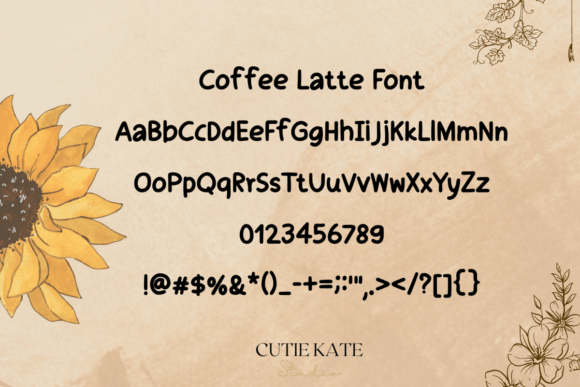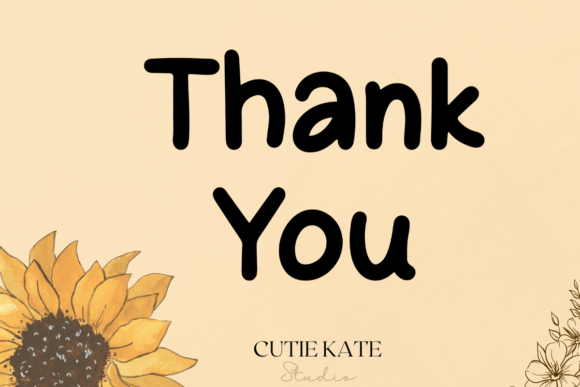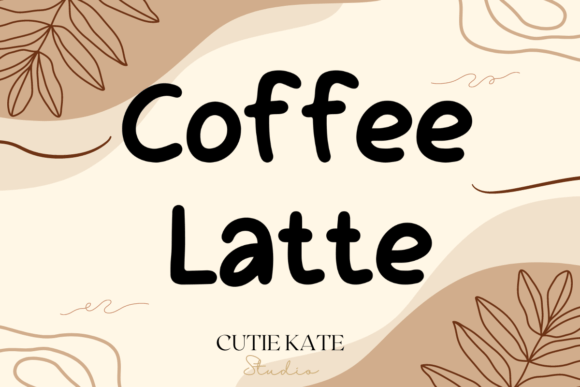
Coffee Latte Font: The Perfect Addition to Your Design Toolbox
Are you a designer, crafter, or digital artist looking for a fun and casual font to elevate your creative projects? Look no further than the Coffee Latte font! This simple yet charming font is perfect for a wide range of applications, from crafts and digital design to presentations and greeting cards. In this article, we’ll explore the features and benefits of the Coffee Latte font, and show you how to make the most of this versatile typeface.
What is Coffee Latte Font?
Coffee Latte font is a modern, sans-serif font designed to bring a touch of warmth and personality to your designs. Its clean lines, rounded edges, and friendly vibe make it an excellent choice for projects that require a casual, approachable feel. Whether you’re creating a social media graphic, a blog post, or a handmade craft, Coffee Latte font is sure to become your go-to typeface.
Key Features of Coffee Latte Font
- Simple and Easy to Read: Coffee Latte font features a straightforward, uncomplicated design that makes it easy to read and understand, even at small sizes.
- Fun and Casual: The font’s rounded edges and friendly vibe give it a playful, carefree feel that’s perfect for creative projects.
- Versatile: Coffee Latte font can be used for a wide range of applications, from digital design to handmade crafts.
- High-Quality: The font is designed to deliver crisp, clear text that’s perfect for printing or digital display.
Uses for Coffee Latte Font
Coffee Latte font is an incredibly versatile typeface that can be used in a variety of creative projects. Here are just a few ideas to get you started:
- Crafts: Use Coffee Latte font to add a personal touch to your handmade crafts, such as scrapbooking, card making, or DIY gifts.
- Digital Design: Coffee Latte font is perfect for digital designers who need a clean, modern font for their projects, such as social media graphics, blog posts, or email newsletters.
- Presentations: Add a touch of personality to your presentations with Coffee Latte font, which can help to engage and entertain your audience.
- Greeting Cards: Create beautiful, one-of-a-kind greeting cards with Coffee Latte font, which is perfect for birthdays, holidays, or special occasions.
Tips for Using Coffee Latte Font
To get the most out of Coffee Latte font, here are a few tips to keep in mind:
- Experiment with Sizes: Coffee Latte font looks great at a variety of sizes, from small and delicate to large and bold.
- Mix and Match: Combine Coffee Latte font with other fonts or graphics to create unique and eye-catching designs.
- Play with Colors: Coffee Latte font looks great in a range of colors, from bright and bold to soft and pastel.
- Keep it Simple: Don’t be afraid to keep things simple and clean with Coffee Latte font – sometimes, less is more!
In conclusion, Coffee Latte font is a fun, casual, and versatile typeface that’s perfect for designers, crafters, and digital artists. With its simple yet charming design, Coffee Latte font is sure to become your go-to font for a wide range of creative projects. Whether you’re making crafts, designing digital graphics, or creating presentations, Coffee Latte font has the potential to elevate your designs and bring a touch of personality to your work. So why wait? Download Coffee Latte font today and start creating spectacular designs!